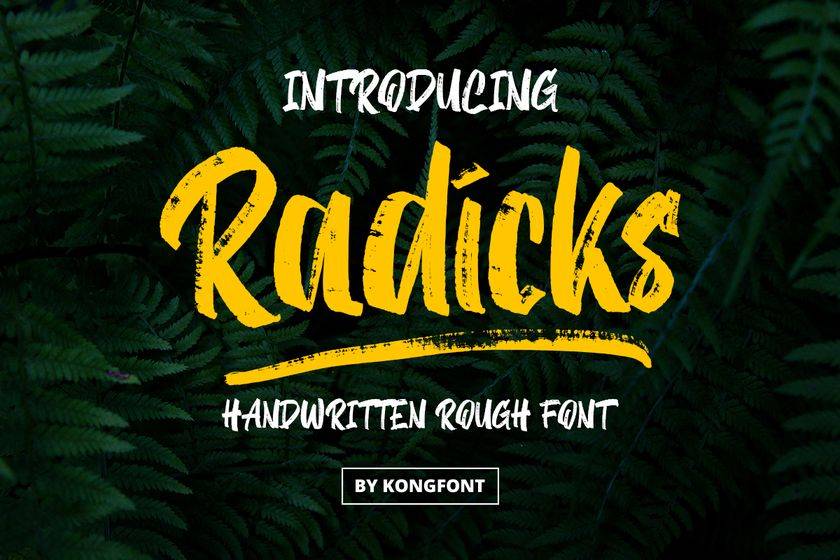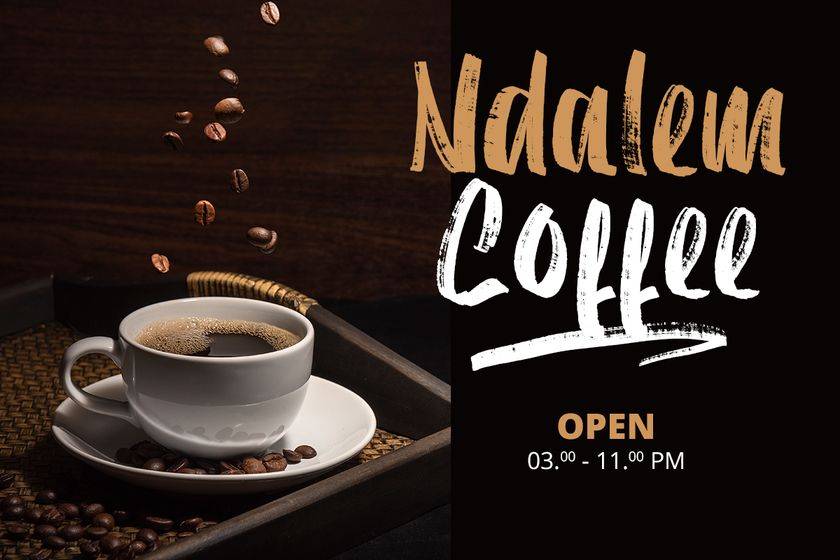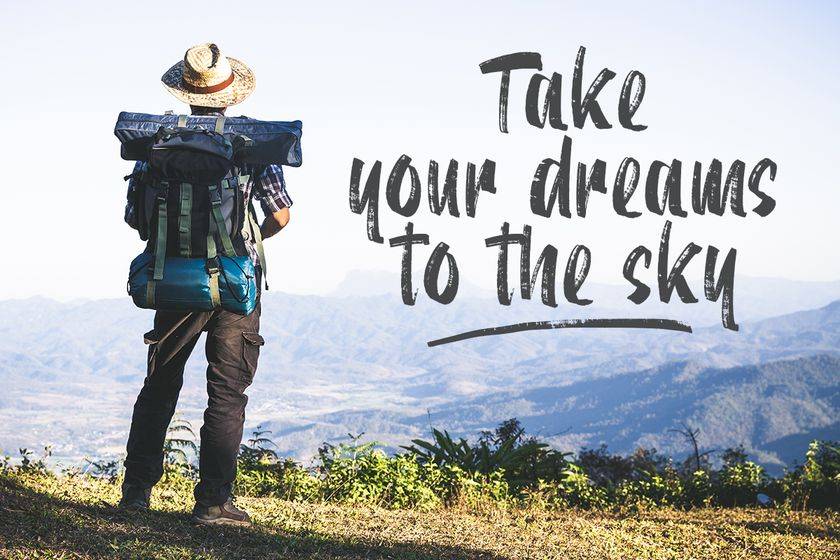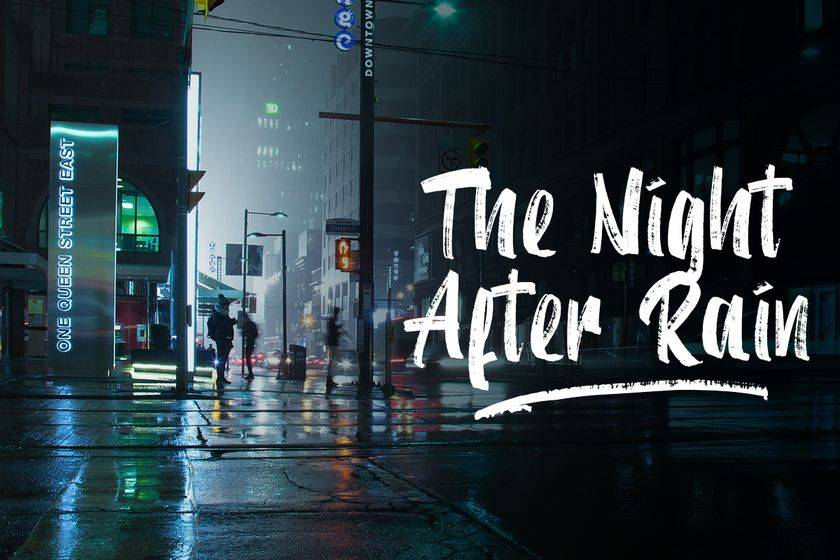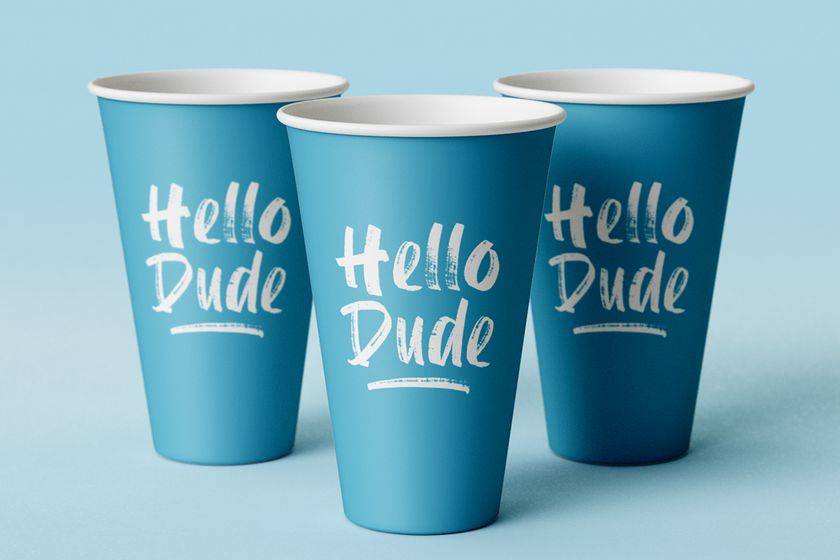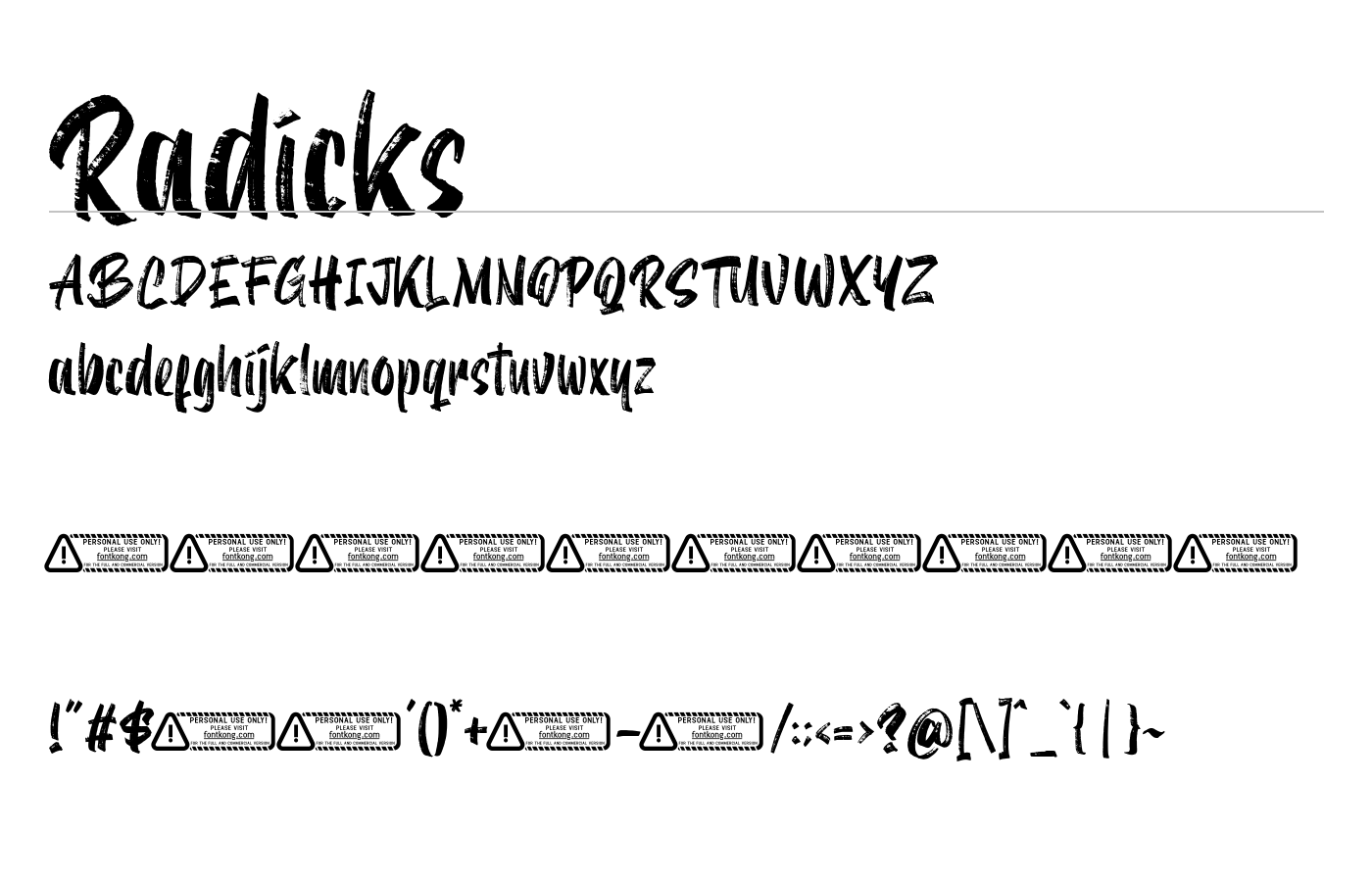
Radicks is a bold, brush-style handwritten font with a textured, rough stroke that gives it an energetic and casual vibe. Its irregular shapes and medium x-height make it perfect for creative designs that want to convey a playful, dynamic, and personal touch. This font works well for logos, posters, and packaging that need a striking, handcrafted look.
Radicks Font